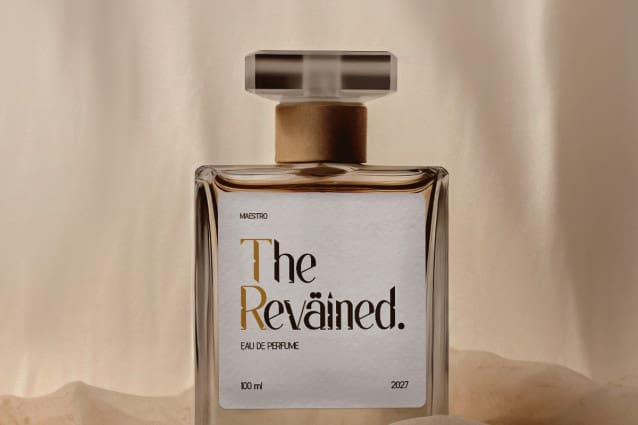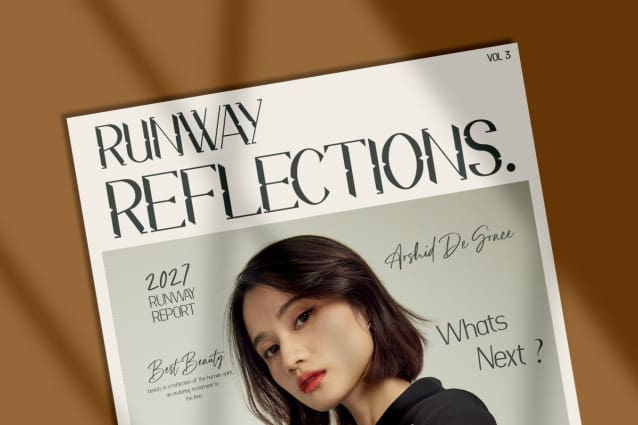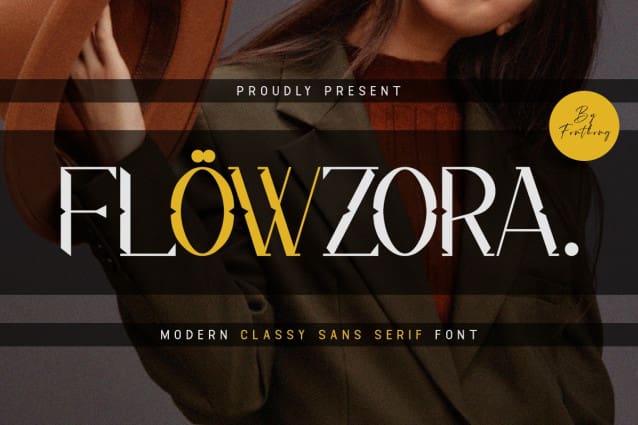
Flowzora Font
Flowzora Font – Modern Classy Unique Sans Serif Font is a new creation that comes with an elegant and simple style with a thick modern font feel. This font is one of those fonts that give you options for people interested in using a sans serif font. Flowzora Font – Modern Classy Unique Sans Serif Font has a distinctive feature, without additional letters in it. It is an easy-to-read font that makes it easy to distinguish individual letters. This font is visible when printed in small or large font sizes.
Flowzora Font – Modern Classy Unique Sans Serif Font is the best font for many things. This font can be part of a branding product. Flowzora Font – Modern Classy Unique Sans Serif Font will look simple and elegant when combined with several things like clothing, posters, and banners. Flowzora Font – Modern Classy Unique Sans Serif Font can be used for magazine covers and online magazines. Flowzora Font – Modern Classy Unique Sans Serif Font is a subclass of sans serif fonts that are used for greeting cards and screen printing. These types of fonts can be digital fonts and print fonts.